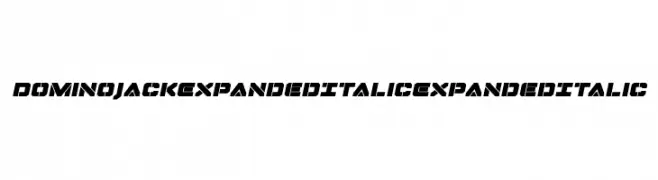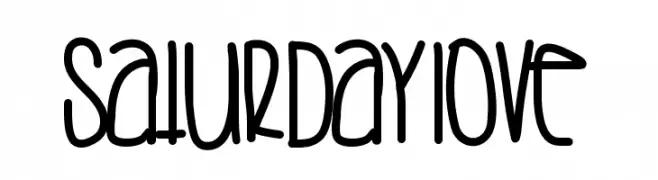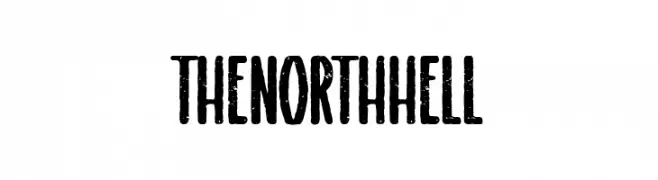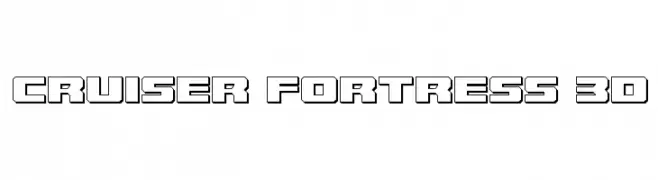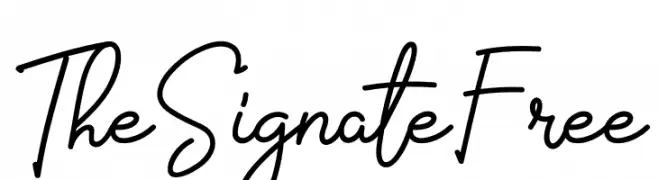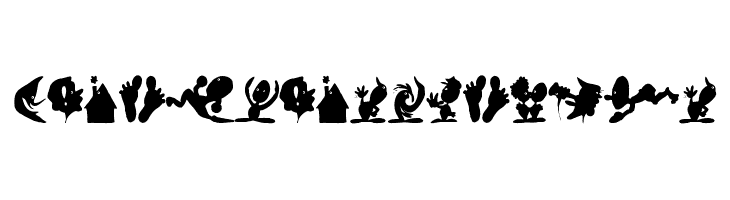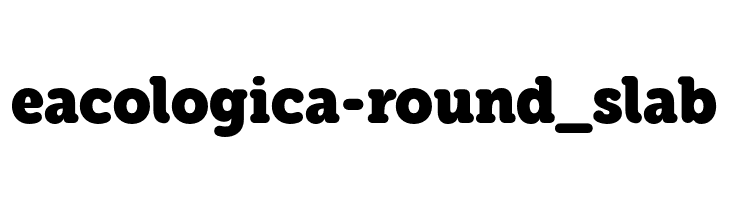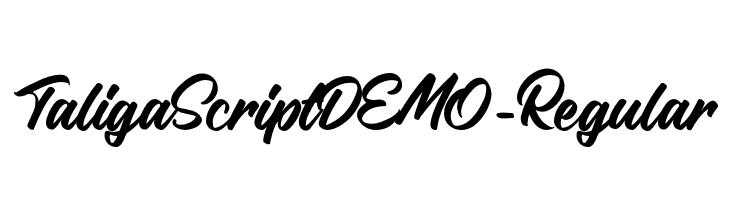
A bold, vintage-inspired serif font with strong, blocky characters and a touch of elegance.
A playful, brush-style font with bold, dynamic strokes and a calligraphic flair.
A bold, expanded, and italic geometric font with a modern, tech-inspired style.
A collection of linocut-style illustrations, each character is a unique artwork.
A playful, hand-drawn font with tall, narrow letters and a whimsical style.
A bold, dynamic script font with a fluid, connected style.
A bold, distressed font with a vintage, textured style.
A bold, 3D geometric font with a futuristic and industrial design.
A bold, three-dimensional font with a modern, geometric style.
A dynamic and flowing script font with elegant, fluid letterforms.